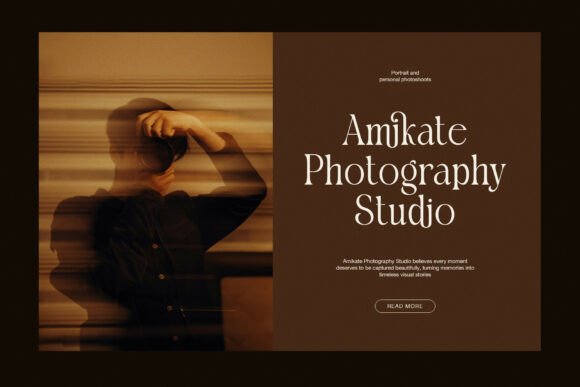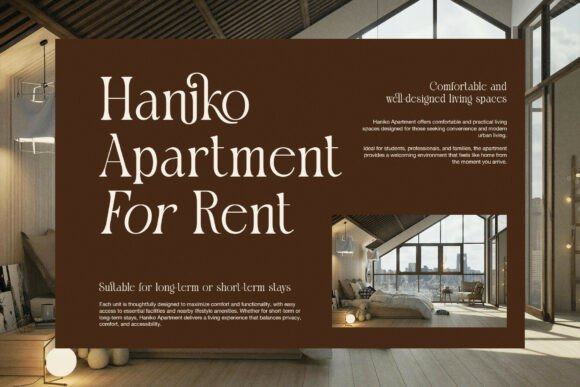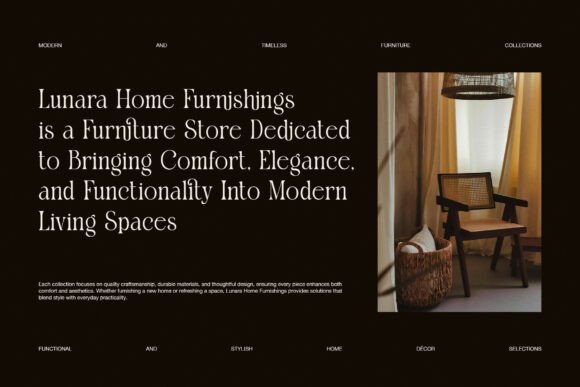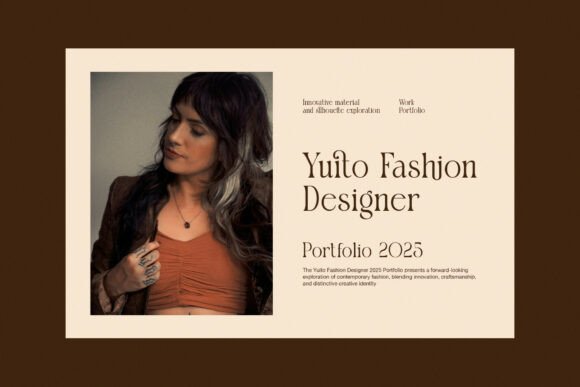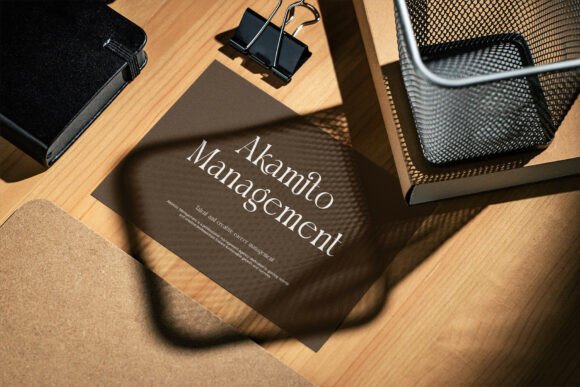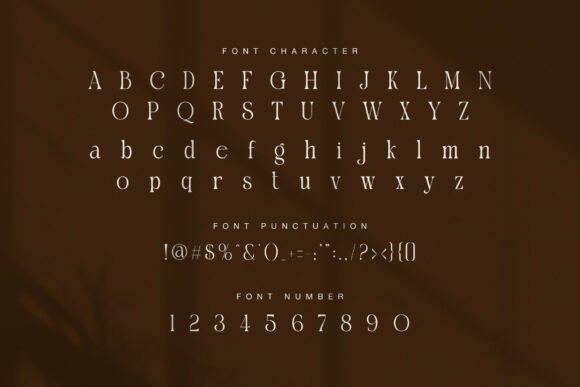
Introduction to Manillo Font
Manillo is an elegant serif font with a soft modern mood and a refined classic base.
It blends slim serif structure with rounded curves, light contrast, and graceful details As a result, it feels clean, calm, and very stylish.
Key Features of Manillo Font